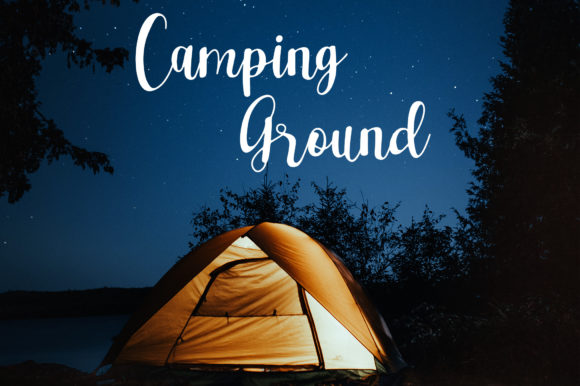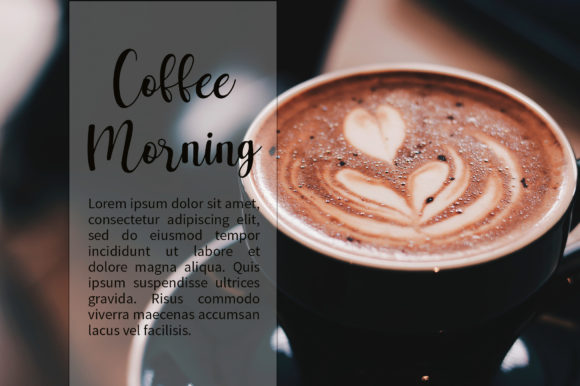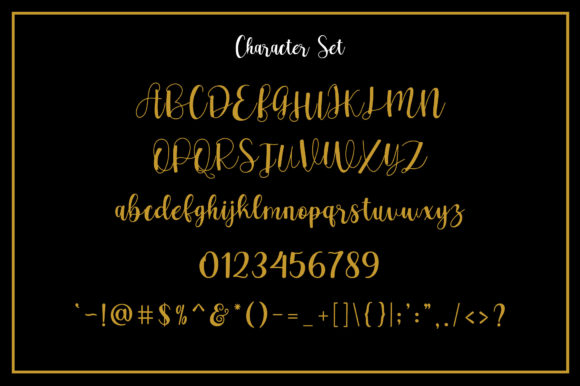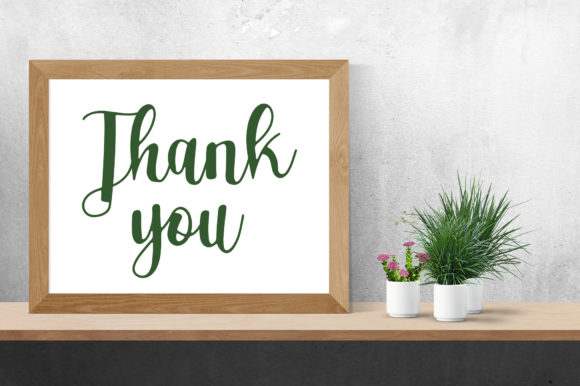
About Procreate Font
Procreate is a chic and trendy script font that emanates sophistication and elegance. Its stylish alternates and ligatures make this font the perfect match for any project.